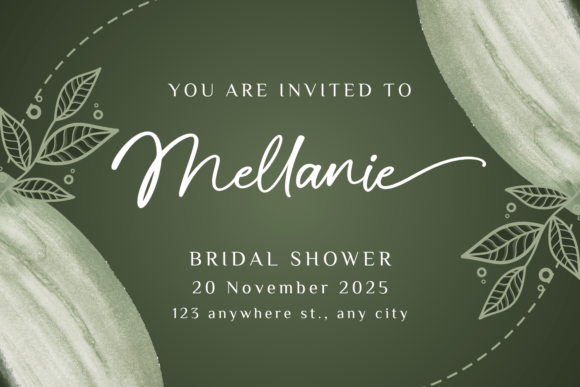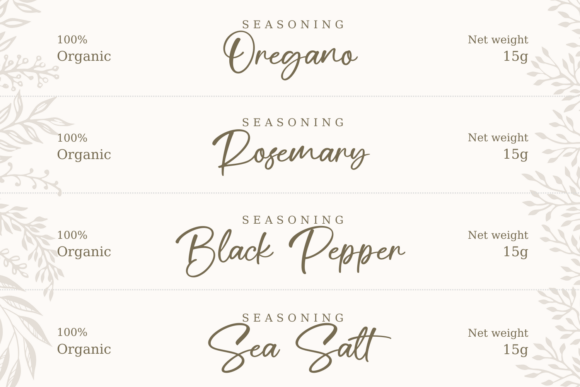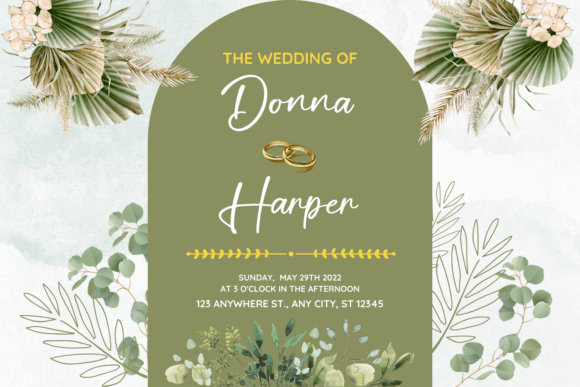
Introduction to Senlich Font
Have you ever been stuck on a creative project, searching for the perfect font to bring your vision to life? I know I have. Remember that late-night brainstorming session when you finally found the perfect handwritten typeface? It’s like a breath of fresh air, isn’t it? For me, that moment was when I discovered the Senlich Font. This beautifully crafted handwritten typeface is more than just a design resource – it’s a game-changer.
As a designer, you know how crucial it is to have high-quality fonts that reflect your brand’s personality and values. The Senlich Font delivers just that, with its natural, personal touch that’s perfect for everything from branding and social media to invitations and packaging. With its transparent background, this font is incredibly versatile and can be easily layered on top of images or used as a standalone design element.
Key Features of Senlich Font
- High-quality design resource ideal for creative projects, offering a unique and stylish aesthetic.
- Designed to be versatile and adaptable, the Senlich Font is suitable for a wide range of creative projects, from branding to editorial content.
Honest Review: Senlich Font
As a designer, I’m always on the lookout for high-quality design resources to elevate my creative projects. The Senlich Font is a great addition to my collection, and I’m excited to share my thoughts on it.
- ✨ The Senlich Font has a unique and modern aesthetic that sets it apart from other fonts. Its clean lines and minimalist design make it perfect for creating a professional and sleek look.
- ✨ The font is highly customizable, with a transparent background that allows for easy layering and blending with other design elements.
- ⚠️ The font may not be suitable for projects that require a bold or dramatic font, as it can come across as a bit too minimalist.
- ⚠️ Some users may find the font’s transparency feature to be a bit tricky to work with, especially when layering multiple elements.
Overall, I’m impressed with the Senlich Font’s versatility and high quality. While it may have some limitations, it’s a valuable addition to any designer’s toolkit. If you’re looking for a clean and modern font for your next creative project, I’d definitely recommend giving the Senlich Font a try.